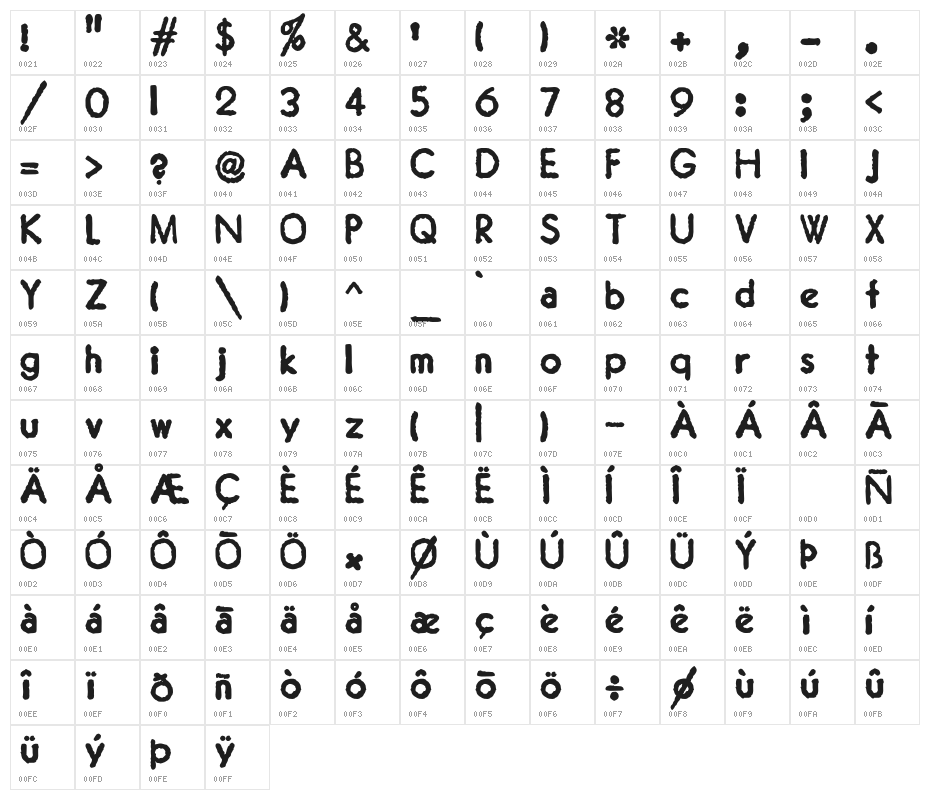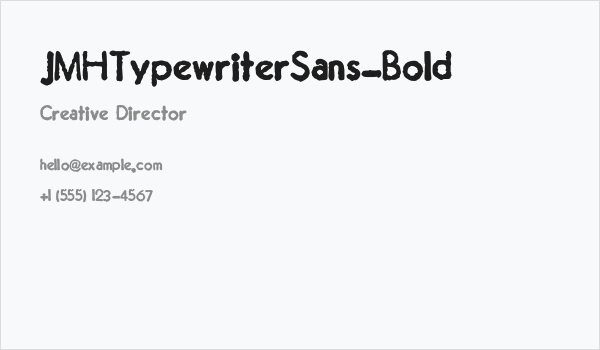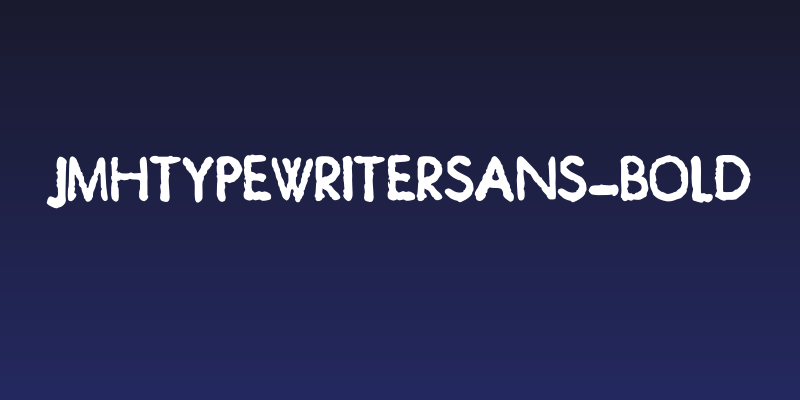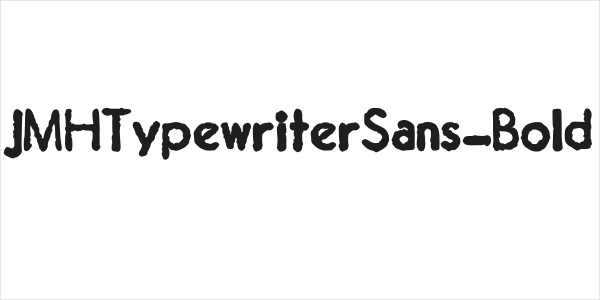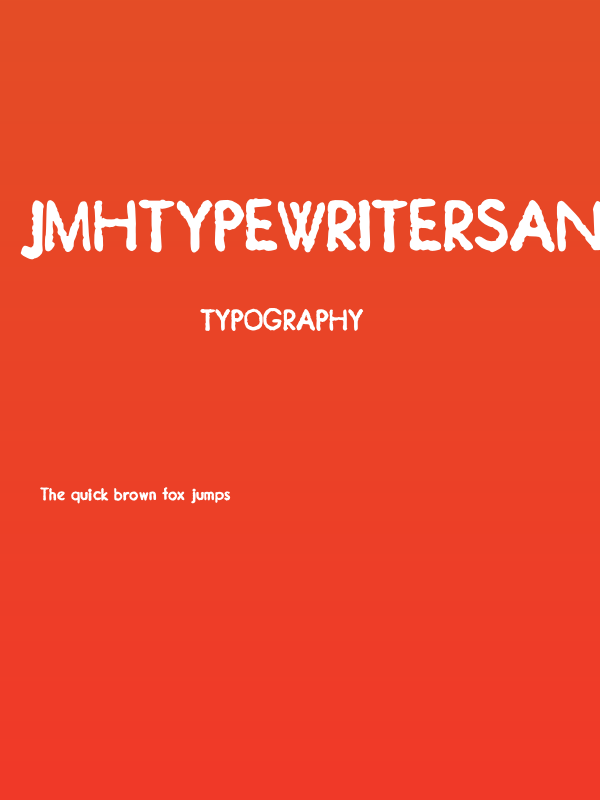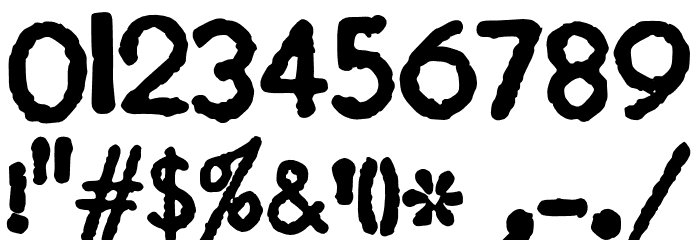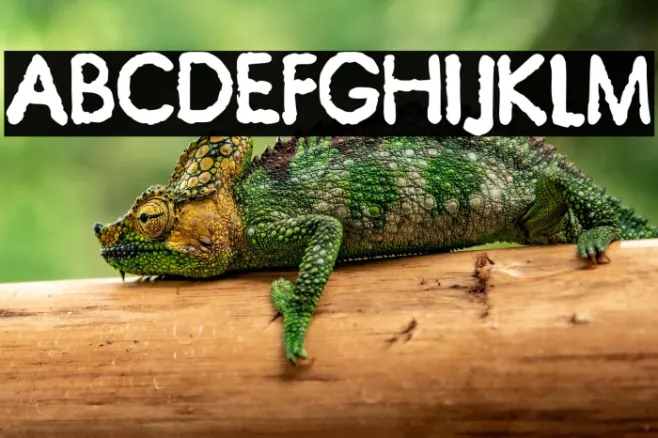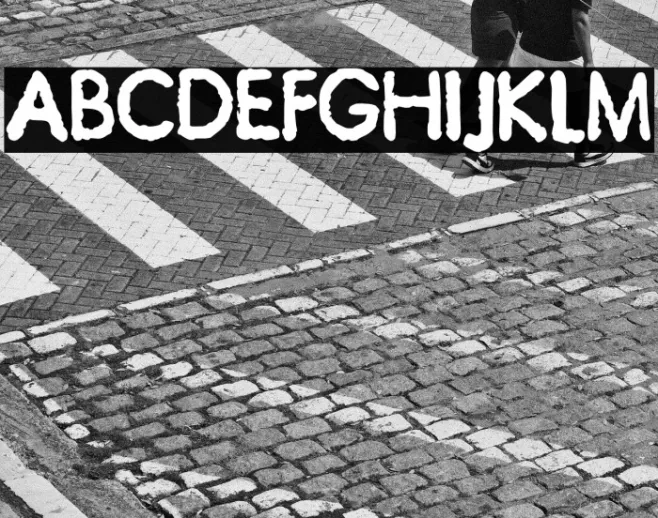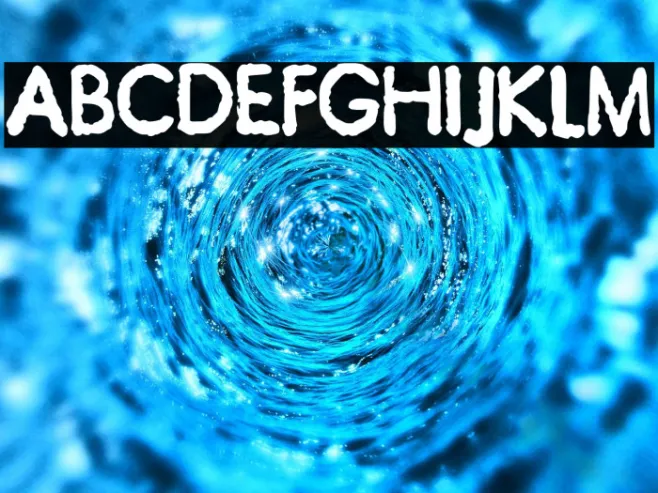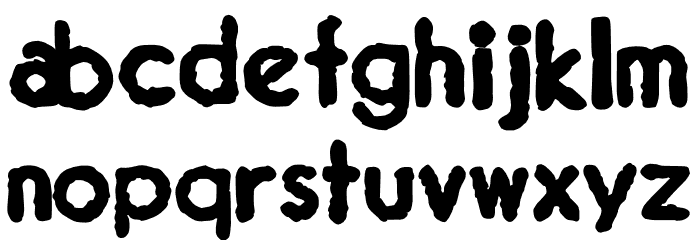
JMHTypewriterSans-Bold Font
JMHTypewriterSans-Bold Description
This font exudes a vintage typewriter aesthetic with a bold and robust appearance. The characters are thick and rounded, giving a sense of strength and presence. Each letter is distinctly separated, maintaining clarity and readability. The font's design mimics the imperfections of old typewriter text, adding a nostalgic and authentic feel. The numbers and special characters follow the same bold and rounded style, ensuring consistency throughout. This font is ideal for projects that aim to evoke a sense of history or nostalgia, while still maintaining a modern edge.
| Proposed Projects | Ideal for retro-themed designs, vintage posters, branding, and editorial projects that require a nostalgic touch. |